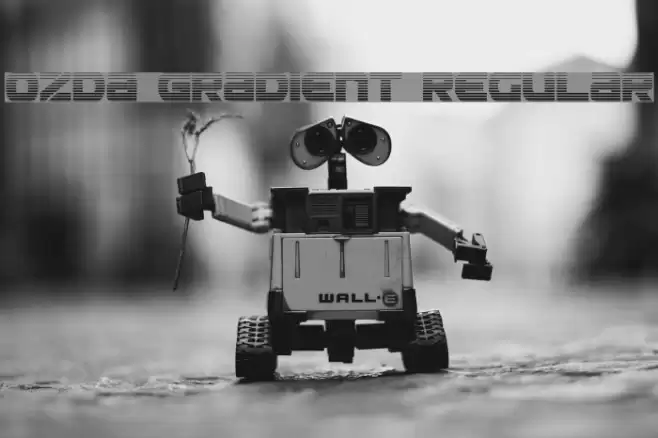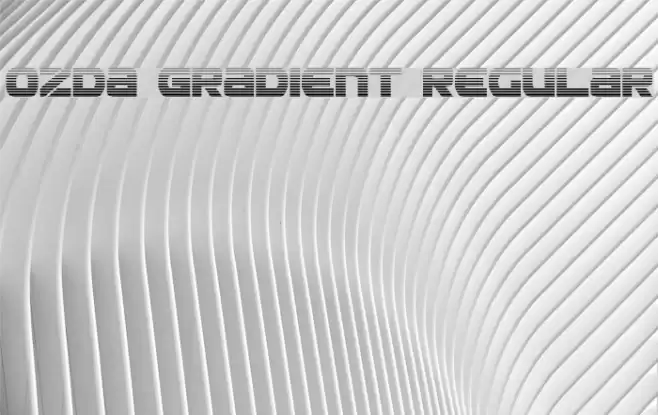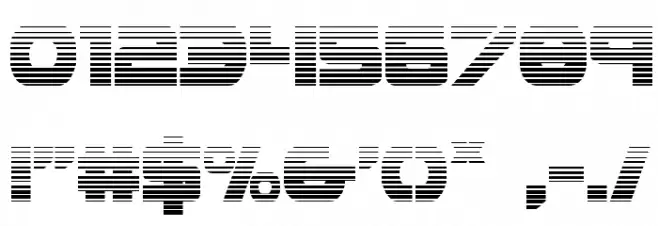
Ozda Gradient Regular Font
Ozda Gradient Regular Description
This font features a unique design characterized by horizontal lines creating a gradient effect across each character. The letters are bold and structured, with a futuristic and digital aesthetic. The uppercase and lowercase letters maintain a consistent style, enhancing readability while adding a distinct visual appeal. The numbers and special characters follow the same design principles, ensuring uniformity across all elements. This font's striking appearance makes it ideal for projects that require a modern and eye-catching typeface.
A bold, futuristic font with a gradient line effect from Uncategorized fonts.
- Proposed Projects: Ideal for digital art, tech branding, futuristic posters, and modern web design.
- Contrast: High